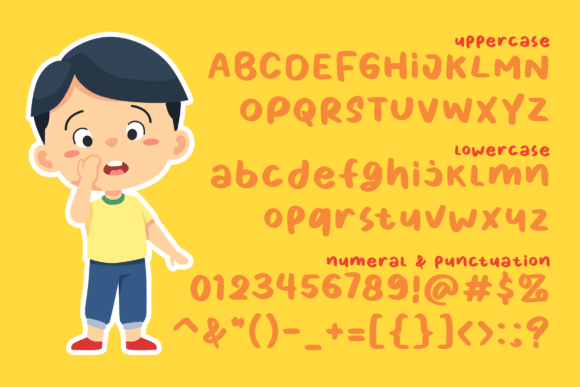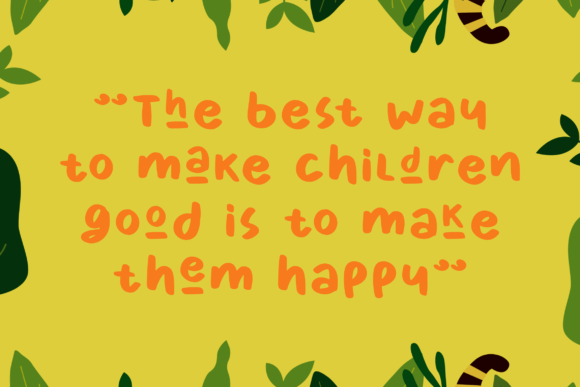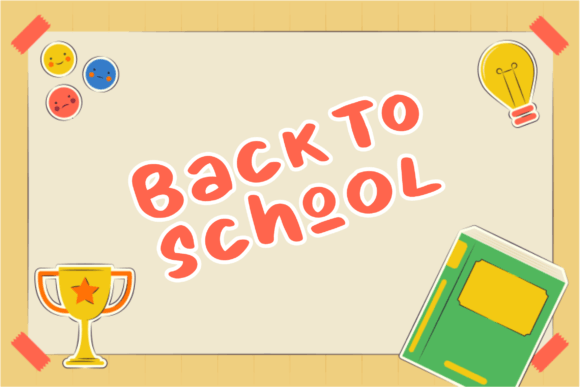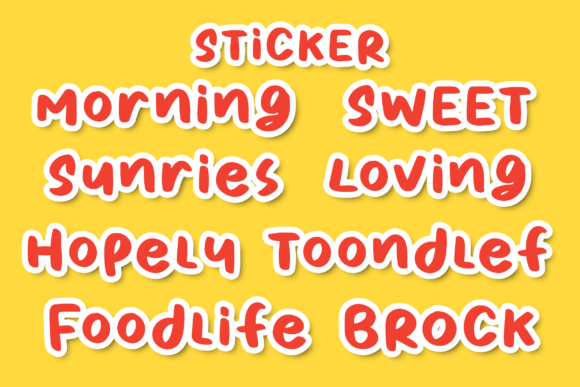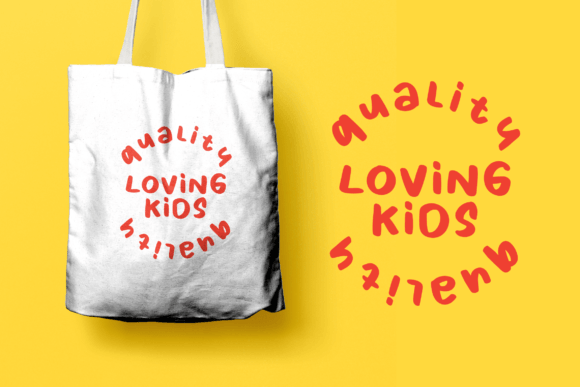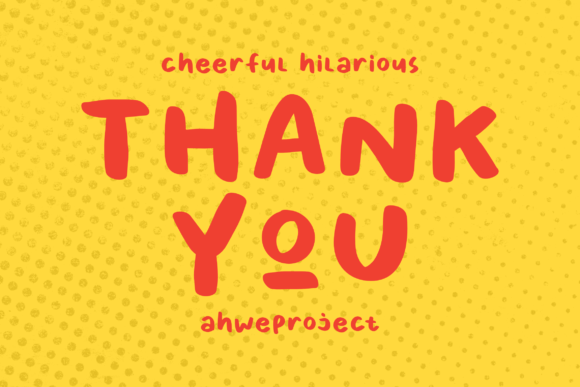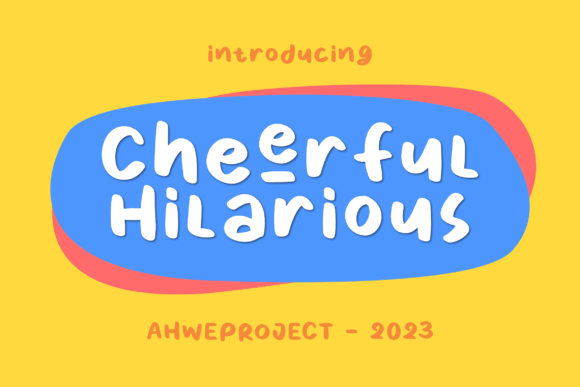
Introducing Cheerful Hilarious Font: The Ultimate Choice for Fun and Quirky Designs
Are you a designer or crafter looking for a font that can add a dash of humor and whimsy to your projects? Look no further than Cheerful Hilarious, a fun and quirky handwritten display font that’s perfect for creating unique, kid-friendly designs. In this article, we’ll dive into the features and benefits of Cheerful Hilarious, and explore how you can use it to take your designs to the next level.
The Cheerful Hilarious Font: A Whimsical Vibe
Cheerful Hilarious is a handwritten display font that’s designed to bring a smile to your face. Its whimsical vibe is perfect for creating designs that are fun, playful, and engaging. Whether you’re working on a project for kids or adults, Cheerful Hilarious is sure to add a touch of humor and personality to your design.
One of the standout features of Cheerful Hilarious is its unique and quirky lettering style. Each letter is carefully crafted to be distinctive and eye-catching, making it perfect for use in titles, headings, and other display text. The font’s playful vibe is also perfect for use in a variety of design projects, from children’s books and educational materials to posters, flyers, and social media graphics.
Key Features of Cheerful Hilarious Font
- Fun and quirky handwritten display font: Cheerful Hilarious is a unique and playful font that’s perfect for adding a touch of humor to your designs.
- Whimsical vibe: The font’s whimsical vibe is perfect for creating kid-friendly designs that are fun and engaging.
- Unique and quirky lettering style: Each letter is carefully crafted to be distinctive and eye-catching, making it perfect for use in titles, headings, and other display text.
- Perfect for a variety of design projects: Cheerful Hilarious is versatile enough to be used in a range of design projects, from children’s books and educational materials to posters, flyers, and social media graphics.
Benefits of Using Cheerful Hilarious Font
So why choose Cheerful Hilarious for your design projects? Here are just a few benefits of using this fun and quirky font:
- Adds a touch of humor and personality to your designs: Cheerful Hilarious is perfect for adding a dash of humor and whimsy to your designs.
- Perfect for kid-friendly designs: The font’s playful vibe makes it perfect for use in children’s books, educational materials, and other kid-friendly designs.
- Easy to read and understand: Despite its playful vibe, Cheerful Hilarious is easy to read and understand, making it perfect for use in a variety of design projects.
- Versatile and flexible: Cheerful Hilarious can be used in a range of design projects, from print materials to digital graphics.
How to Use Cheerful Hilarious Font in Your Designs
So how can you use Cheerful Hilarious in your designs? Here are a few ideas to get you started:
- Children’s books and educational materials: Cheerful Hilarious is perfect for use in children’s books, educational materials, and other kid-friendly designs.
- Posters and flyers: The font’s playful vibe makes it perfect for use in posters, flyers, and other eye-catching graphics.
- Social media graphics: Cheerful Hilarious is perfect for use in social media graphics, from Facebook posts to Instagram stories.
- Crafting and DIY projects: The font’s whimsical vibe makes it perfect for use in crafting and DIY projects, from handmade cards to personalized gifts.
| Font Name | Cheerful Hilarious Font |
| Author | ahweproject |
In conclusion, Cheerful Hilarious is a fun and quirky handwritten display font that’s perfect for creating unique, kid-friendly designs. Its whimsical vibe and playful lettering style make it perfect for adding a touch of humor and personality to your designs. Whether you’re a designer or crafter, Cheerful Hilarious is sure to become a go-to font in your collection. So why wait? Download Cheerful Hilarious today and start creating fun and engaging designs that are sure to bring a smile to people’s faces!